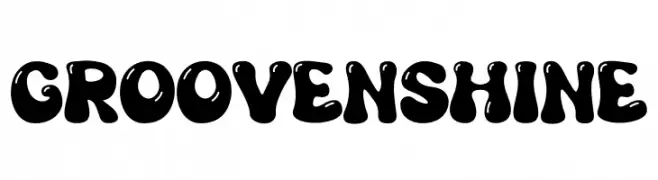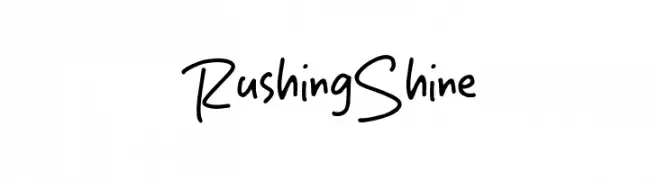
( Fonts by Hawtpixel )
A playful, bold, and italicized font with star-themed decorative elements.
( Fonts by Hawtpixel )
A playful, hand-drawn font with bold, rounded characters and star motifs.
( Fonts by HansCo )
A playful, bold font with a bubbly, rounded design perfect for fun and whimsical projects.
( Fonts by Brittney Murphy Design )
A playful, hand-drawn font with bold, rounded characters and a whimsical style.
( Fonts by Tri Sakti Oktaviano )
A playful, bold font with rounded, bubbly characters perfect for informal designs.
( Fonts by Salamahtype.com )
A bold, playful font with a bubbly, glossy appearance.
An elegant, cursive handwritten font with flowing, connected letters.
A flowing, cursive script font with a natural handwritten style.
( Fonts by Soonshine )
A playful, handwritten font with a casual and approachable style.
( Fonts by MJType )
A playful, casual handwritten font with smooth, flowing lines.